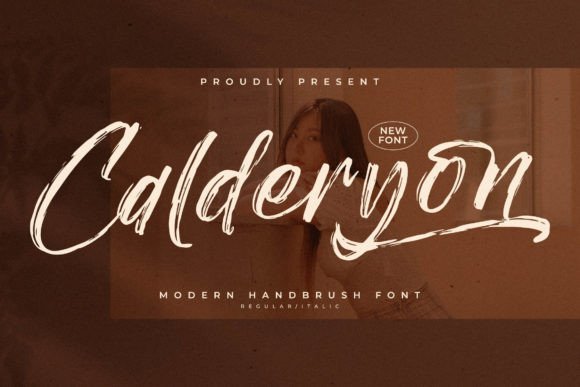
The Art of Whimsy: Discovering the Perfect Script Font
As a designer, you know that sometimes the perfect font can make all the difference in bringing your creative vision to life. It’s that moment when you stumble upon a font that perfectly captures the essence of your project – the feeling of excitement, the rush of inspiration. For many designers, this moment is what drives them to keep creating.
Glorytype Studio’s Calderyon Font is one such discovery that’s sure to spark your creativity. This modern handbrush font is designed for versatility, making it perfect for a wide range of projects, from logos and branding to homeware designs and product packaging. With its beautiful script taste, Calderyon Font adds a touch of elegance and sophistication to any design.
Calderyon Font Key Features
- Font Family: Calderyon Font
- Character Set: Supports a wide range of languages, including Latin-based scripts and Cyrillic
- Unique Characteristics: Distinctive, elegant, and sophisticated design; perfect for high-end branding, luxury products, and premium publications
Calderyon Font Review
I recently had the chance to work with the Calderyon Font, and I must say it’s a unique and interesting choice. Here are some of the things that worked well for me: ✨
- ✨ Elegant and sophisticated feel: The Calderyon Font has a refined, high-end aesthetic that’s perfect for luxury brands or high-end marketing materials.
- ✨ Versatile: Despite its elegant feel, the font is surprisingly versatile and can work well in a variety of contexts, from body text to headings.
- ✨ Strong contrast: The font has a clear and strong contrast between thick and thin lines, which makes it easy to read and adds to its overall impact.
However, I did encounter some limitations that may make it less suitable for certain projects: ⚠️
- ⚠️ Limited character set: The Calderyon Font has a relatively limited character set, which may make it less suitable for languages that require a lot of special characters.
- ⚠️ May not be suitable for small text: The font’s elegant feel and strong contrast may make it difficult to read at small sizes, so it’s best used for headings and larger body text.
Overall, the Calderyon Font is a solid choice for designers who want to add a touch of luxury and sophistication to their projects. While it may have some limitations, it’s a versatile and elegant font that’s definitely worth considering.
Tips for Getting the Most Out of Calderyon Font
Here are some tips for getting the most out of the Calderyon Font:
- Use the Calderyon Font in conjunction with other design elements, such as images and graphics, to create visually appealing designs.
- Experiment with different font sizes and styles to create a unique and eye-catching look.
- Use the Calderyon Font to create custom logos and graphics that reflect your brand’s personality and style.
What is the recommended font size for Calderyon?
The recommended font size for Calderyon is between 12pt and 24pt. This range provides optimal legibility and visual appeal for body text. However, you can experiment with different font sizes to suit your design needs.